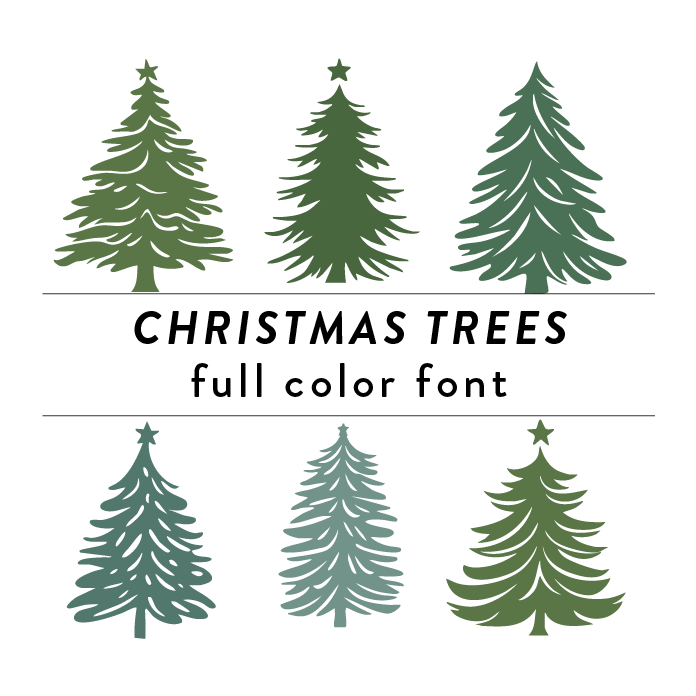
Christmas Trees Full Color Font is a festive dingbat font featuring various Christmas tree designs such as branches and leaves. With vibrant, full-color branches this font adds a playful and whimsical touch to holiday-themed projects. Perfect for creating greeting cards, invitations, and decorations during the festive season. This font is a OTF craft font that will appear in color only when used with the silhouette software.